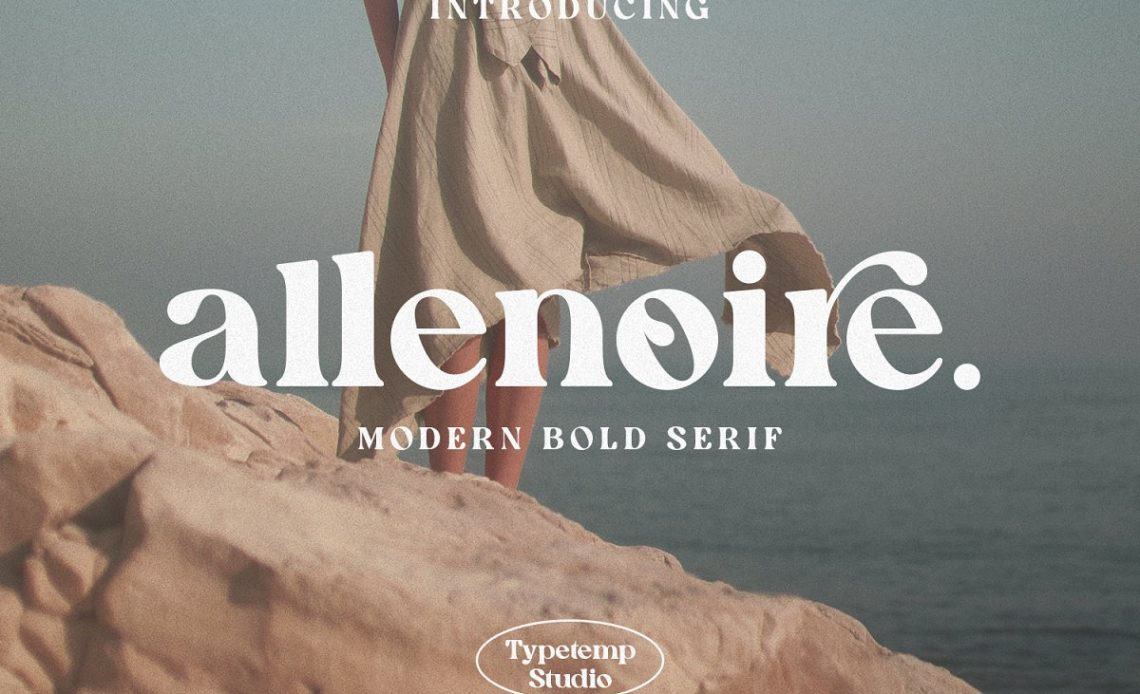
Looking for the best font to make your blog headlines stand out? Look no further than Allenoire - Modern Bold Serif Font! Created by renowned font designer Egi Ahmad Mufid, this stylish font has a unique blend of modern and retro aesthetics that will make your content truly pop.
But Allenoire is more than just a pretty face. With a wide range of alternatives and ligatures, it's the perfect choice for creating stunning logos, quotes, posts, blog articles, branding projects, magazine imagery, wedding invitations, and much more. Plus, with its TTF, OTF, and WOFF file formats, it's fully compatible with both PC and Mac operating systems, making installation a breeze.
So why wait? Give Allenoire a try today and see why it's quickly becoming the go-to font for bloggers, designers, and creatives everywhere. With its unique letterforms and eye-catching design, it's sure to be the perfect addition to your font collection. And if you have any questions, just shoot us a message and we'll be happy to help. Happy creating!